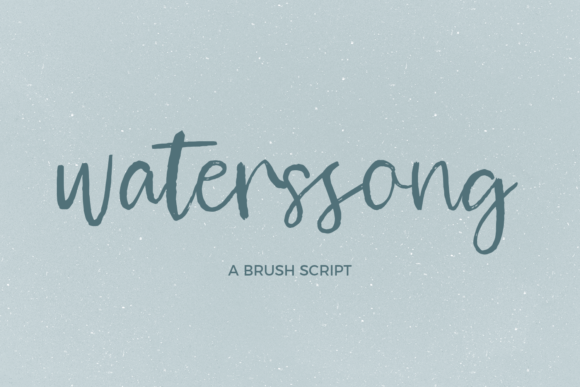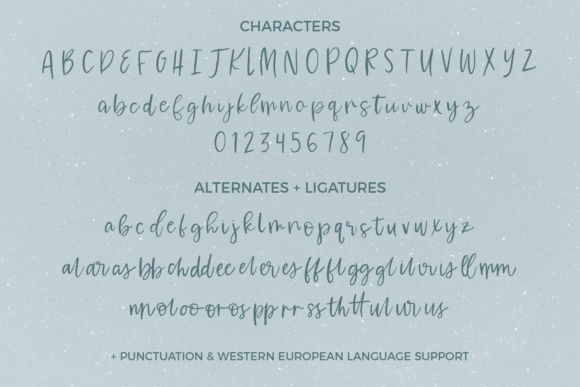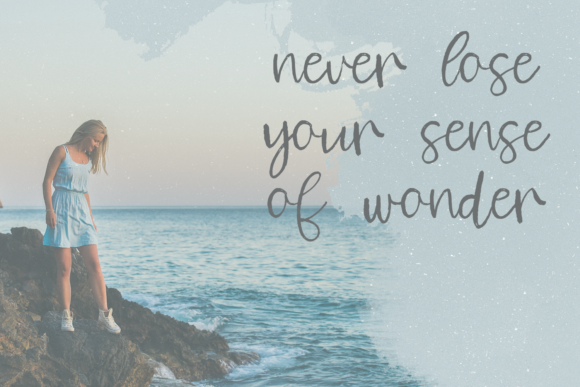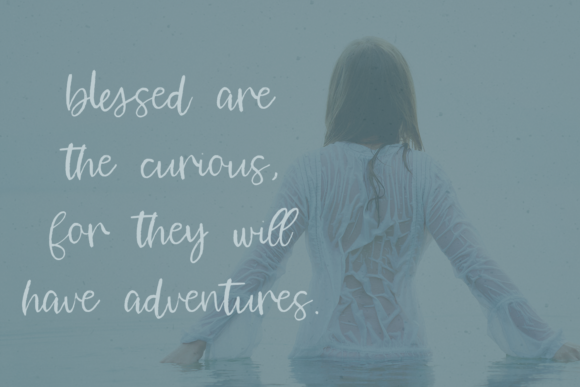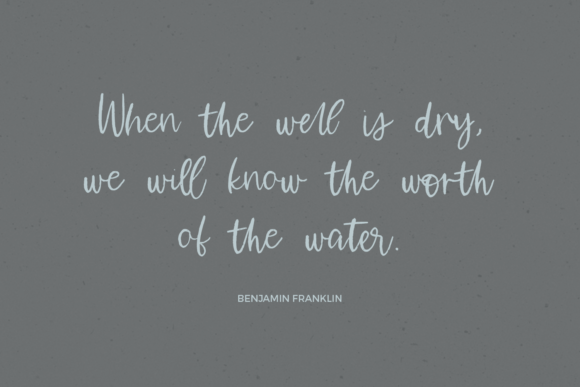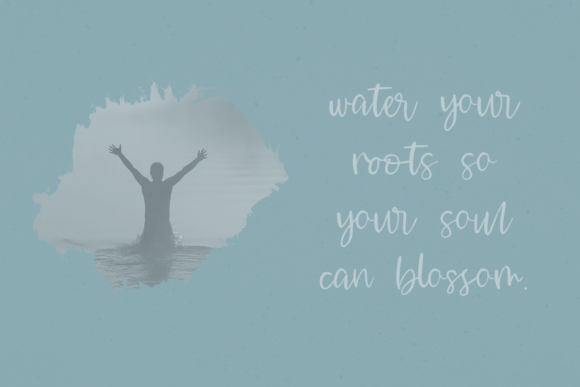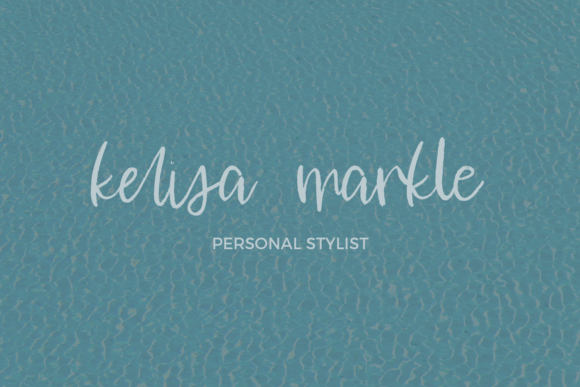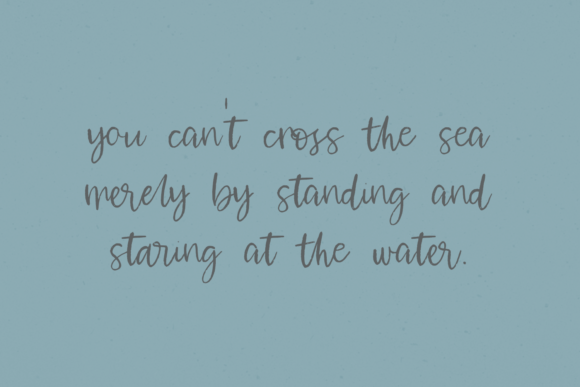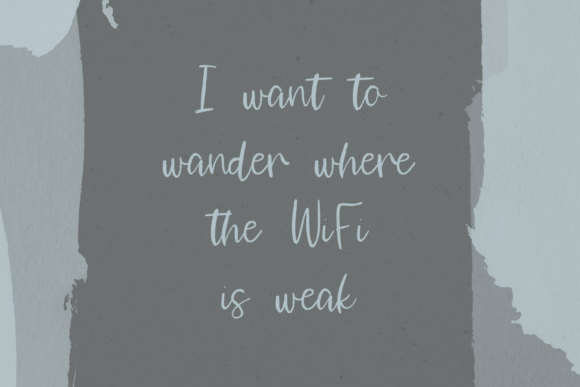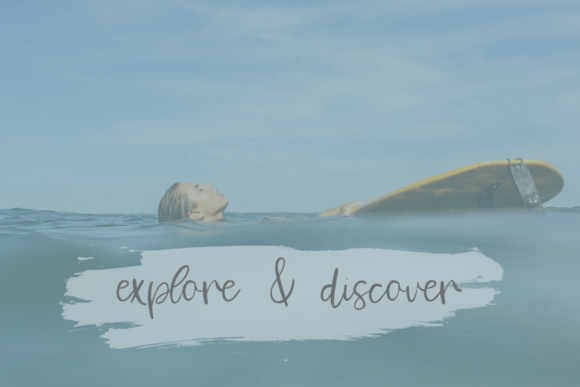
HomeScript FontsWaterssong Font Script Fonts Waterssong Font FacebookXPinterestWhatsApp Waterssong Font Poster 2 Waterssong Font Poster 3 Waterssong Font Poster 4 Waterssong Font Poster 5 Waterssong Font Poster 6 Waterssong Font Poster 7 Waterssong Font Poster 8 Waterssong Font Poster 9 Waterssong Font Poster 10 About Waterssong Font Waterssong is a brush and textured script. It will take your creative projects to the next level! DOWNLOAD ON CREATIVE FABRICAThis font is sold and delivered by Creative Fabrica. Font Canyon may earn a commission if you buy through this link. People also explored South East Font Anjellic Duo Font Morning Font Bodtwenty Font Silentina Lovely Darling Font Maidenhair Font Reindeer Font Summer Font 280 0 TagsWaterssong Font Previous articleKey Largo FontNext articleAngeleno Brush Font LEAVE A REPLY Cancel reply Comment: Please enter your comment! Name:* Please enter your name here Email:* You have entered an incorrect email address! Please enter your email address here Website: Save my name, email, and website in this browser for the next time I comment. Personal Use Free Talking on Personal Use Free Read more about this font Loving You Personal Use Free Read more about this font Gunplay Personal Use Free Read more about this font Comic Caps Personal Use Free Read more about this font BLOG Top 7 Google Fonts Alternatives for Faster and Privacy-Friendly Web Design (2025) Top 7 Google Fonts Alternatives for Faster and Privacy-Friendly Web Design (2025) When it comes to web typography, Google Fonts has long been the go-to... How to Cut Any Font on Cricut: Convert a Font to SVG (Free) To increase your work productivity, choose the most readable fonts. Free vs Paid Fonts: Why Investing in Premium Fonts Is Worth It